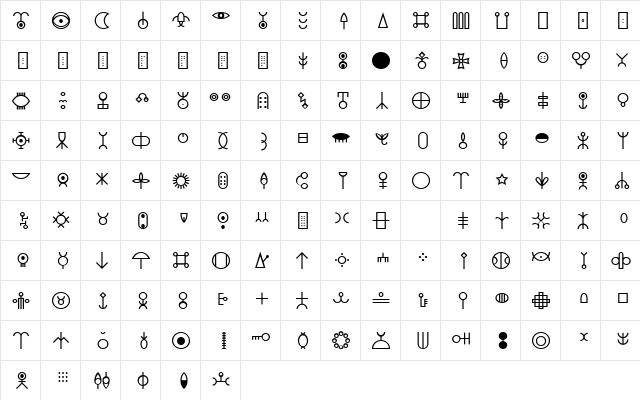
Yisana-Normal Regular
Design Context for Yisana-Normal
Yisana-Normal is a composed and adaptable typeface that performs quietly and consistently across a wide range of design contexts.
Pro Tip: Use Yisana-Normal in both headline and body roles to test its range before committing to a single application.